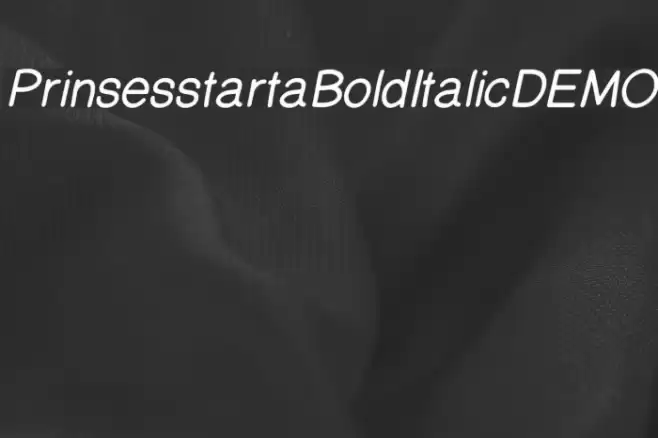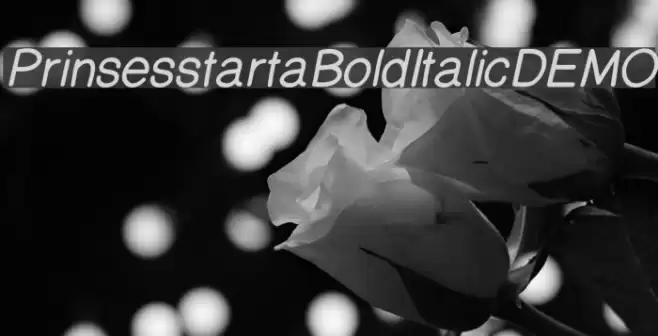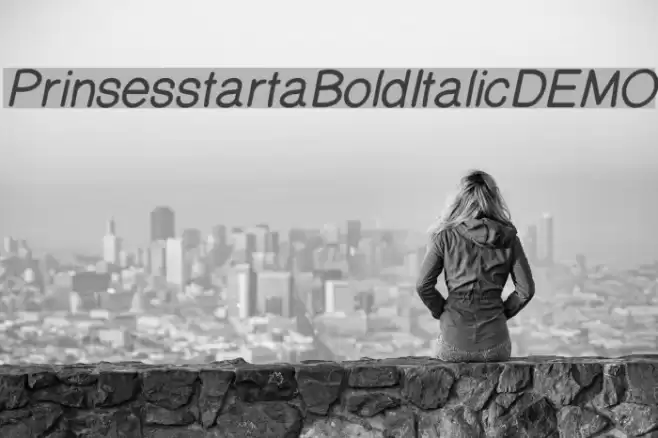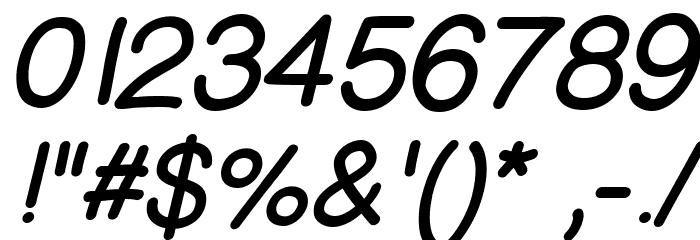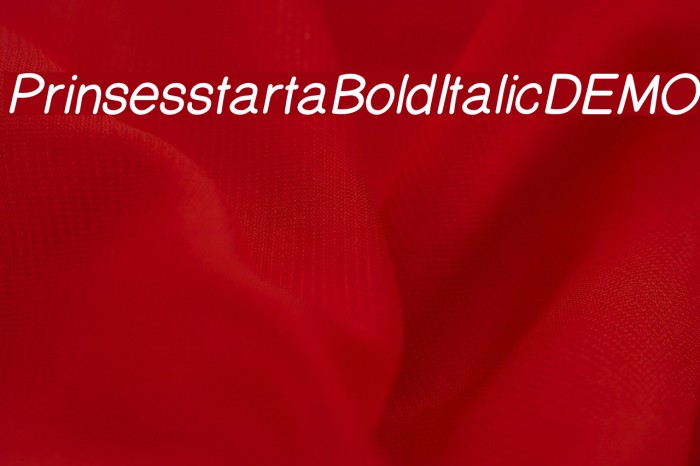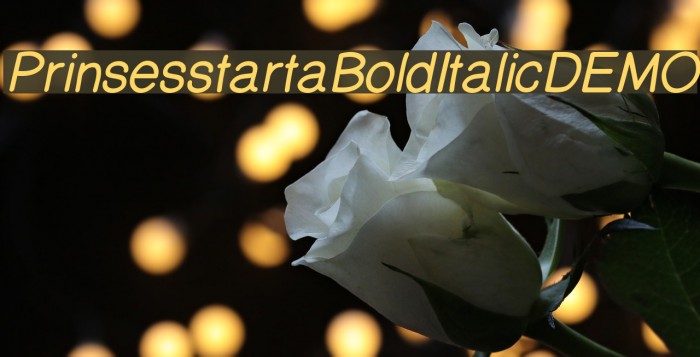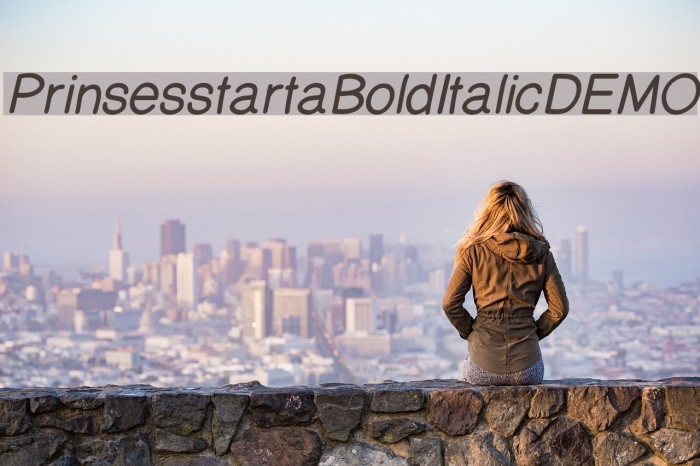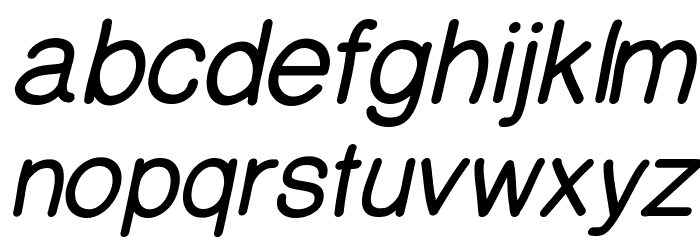
PrinsesstartaBoldItalicDEMO Font
PrinsesstartaBoldItalicDEMO Description
This font features a sleek and modern design with a distinct italic slant, giving it a dynamic and forward-moving appearance. The characters are bold, with smooth curves and clean lines that enhance readability while maintaining a stylish look. The uppercase and lowercase letters are well-proportioned, and the numerals are clear and consistent in style. Special characters are included, maintaining the same aesthetic as the alphanumeric characters. This font is versatile, suitable for various design projects that require a contemporary and energetic feel.
A bold, italic, modern font with smooth curves and a dynamic slant from Handwritten fonts.
- Proposed Projects: Ideal for branding, advertising, headlines, and digital media projects.
- Use Case: Headlines, Logos, Branding